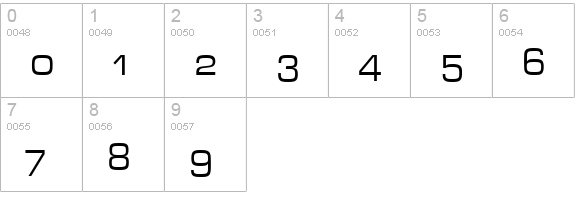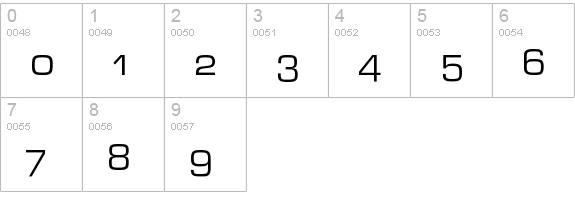
EurostileSCT font is a modern and stylish typeface that exudes sleekness and sophistication. With its geometric shapes and distinctive letterforms, EurostileSCT is perfect for creating eye-catching designs for various projects. This versatile font can be used for headlines, logos, posters, and more, adding a touch of elegance to any design. What sets EurostileSCT apart is that it is available for free download at FontsMarket.com. This means you can easily access this beautiful font and use it in your projects without any cost. Whether you are a designer looking to add a unique element to your work or a typographer searching for a new favorite font, EurostileSCT is a fantastic choice that won't break the bank. Download it today and elevate your designs with this striking and modern typeface.